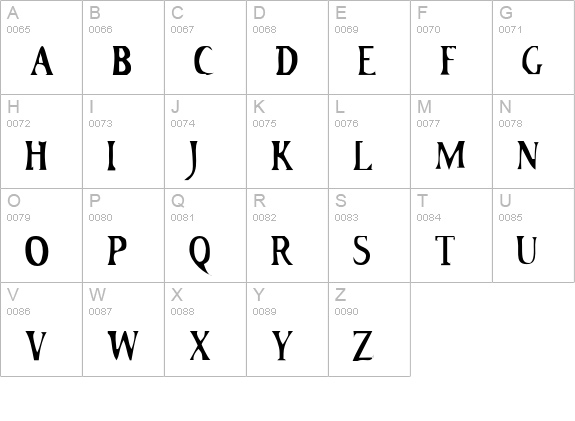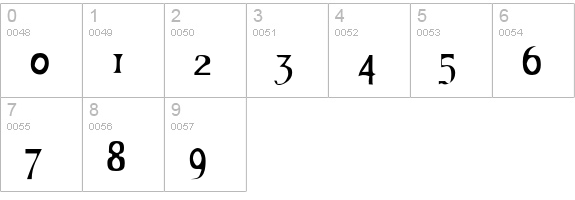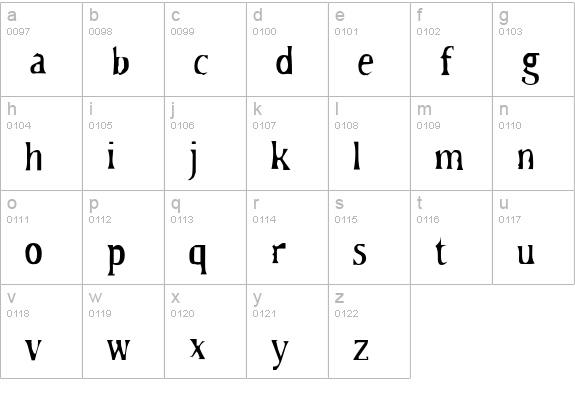
Introducing HateNote Font, a bold and powerful typeface that dares to make a statement. With its sharp edges and distinct character, HateNote Font exudes an aura of strength and defiance. This font is designed to capture attention and leave a lasting impression. HateNote Font is not just your average font - it is a creative expression of emotion and rebellion. Its unique design embodies the essence of resilience and challenges the norm. Whether you're looking to make a bold statement in your designs, posters, or branding projects, HateNote Font is the perfect choice. One of the best things about HateNote Font is that it is freely available to download at FontsMarket.com. Yes, you read that right - it's completely free! This means that you can bring this powerful typeface into your projects without breaking the bank. Embrace the freedom to express yourself and make a lasting impact with HateNote Font. This font is not for the faint of heart. It is for those who dare to challenge conventions, break boundaries, and stand out from the crowd. HateNote Font commands attention with its strong presence and is sure to leave a lasting impression on anyone who encounters it. So, if you're looking for a font that embodies strength, rebellion, and creativity, look no further than HateNote Font. Download it for free at FontsMarket.com and let your designs speak volumes. Embrace the power of HateNote Font and make your mark in the world of design.